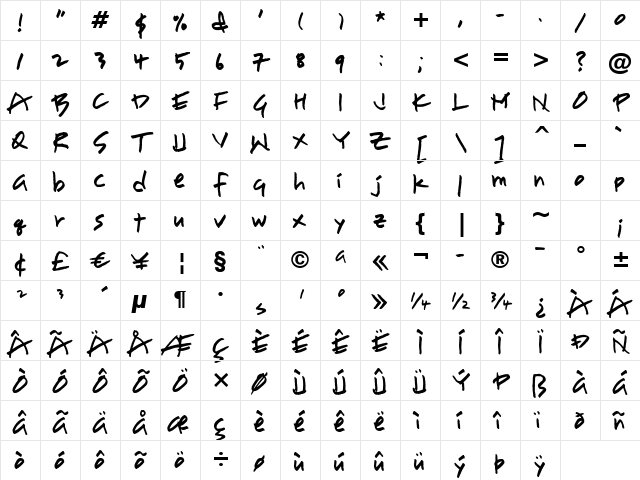
Complete Youngsook BTN Regular glyph index. Displaying only characters natively supported by Youngsook BTN Regular font.
Youngsook BTN is a composed and adaptable typeface that performs quietly and consistently across a wide range of design contexts.